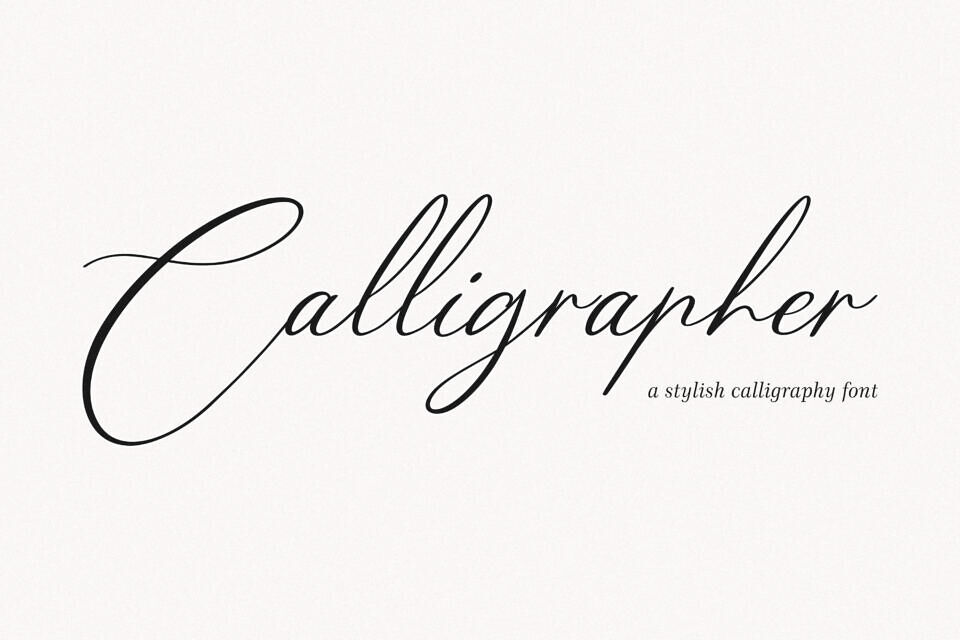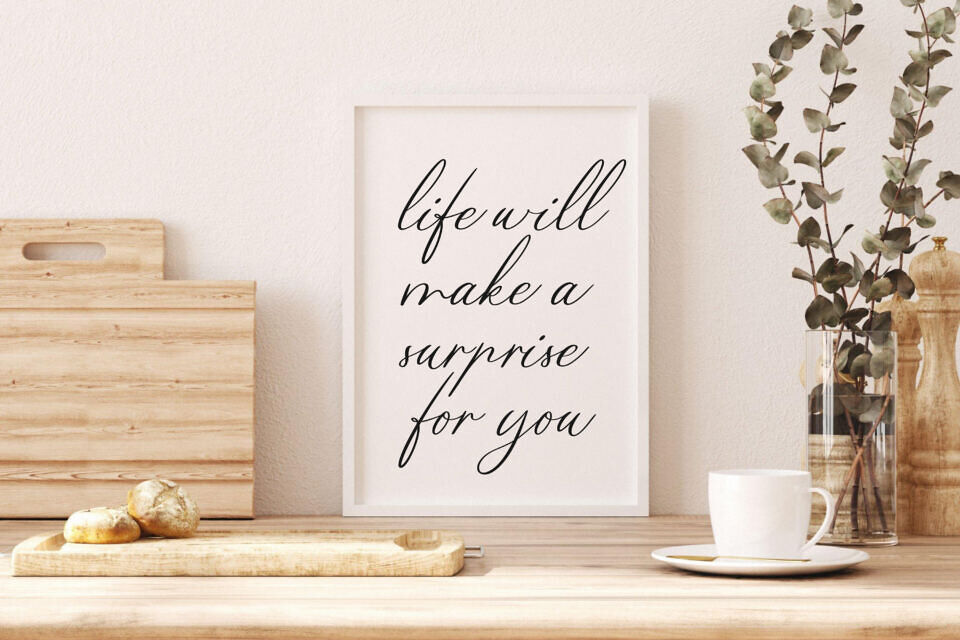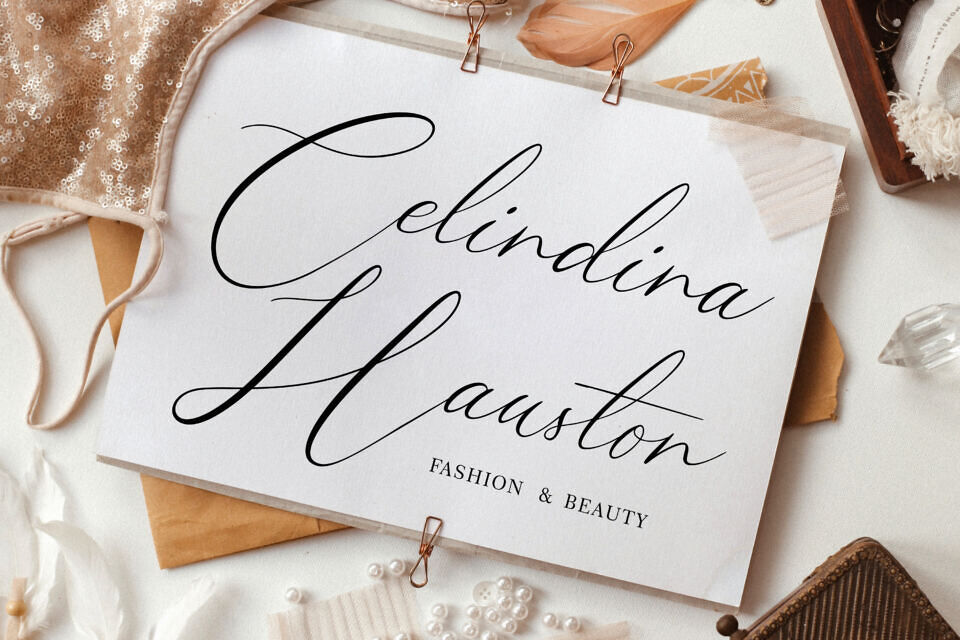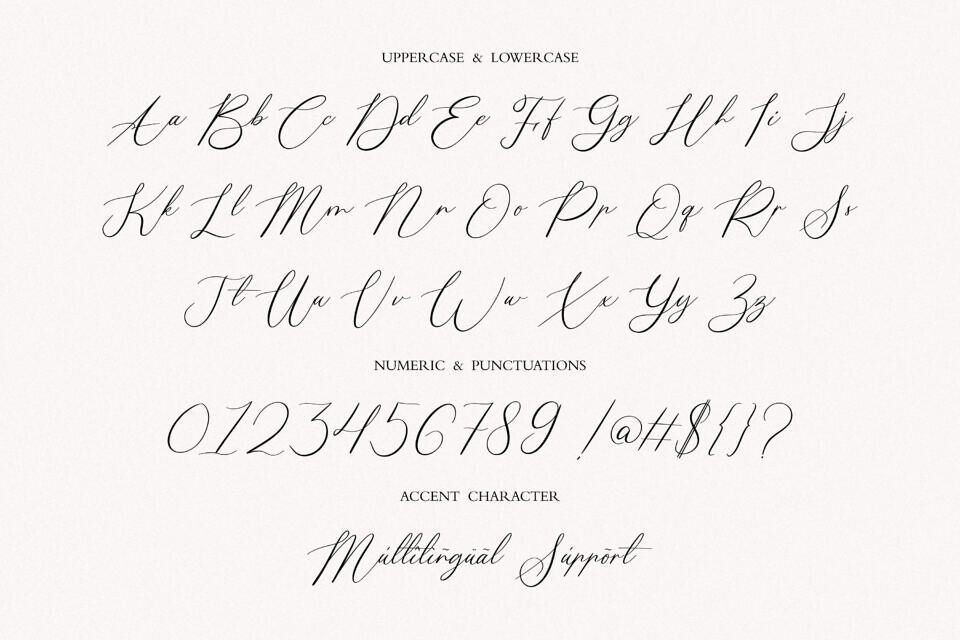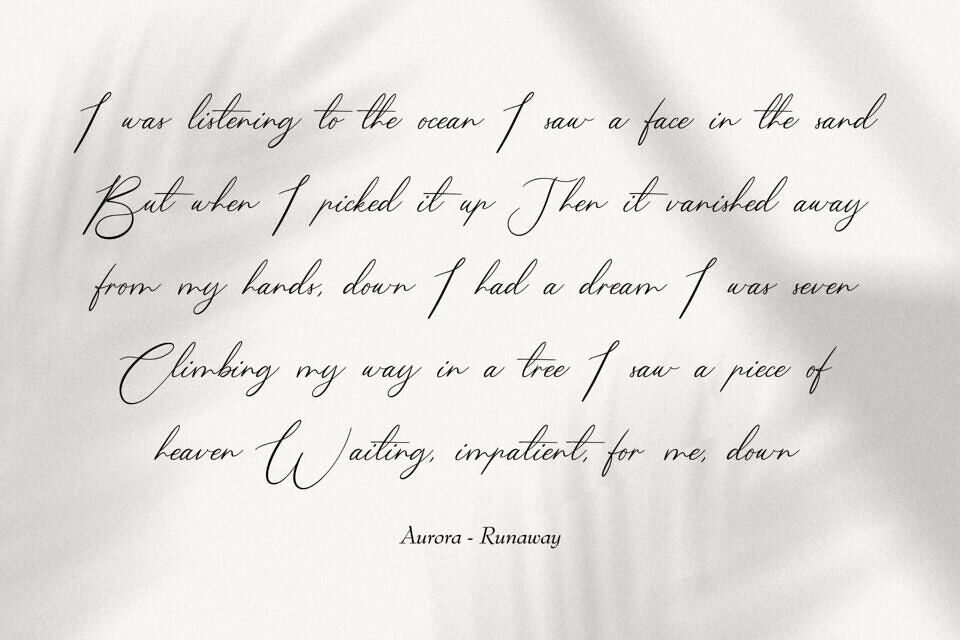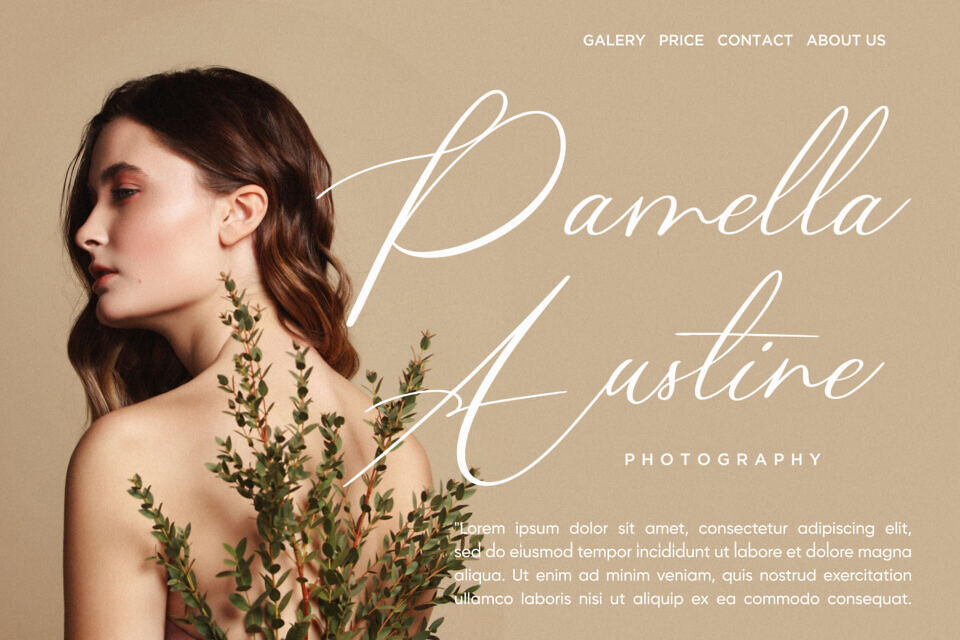
Essentials Studio presents Calligrapher, a stylish handwritten font. It’s ideal for packaging, branding, magazines, social media, weddings, and adding text to backgrounds. With multilingual support, Calligrapher offers versatility for various design projects.